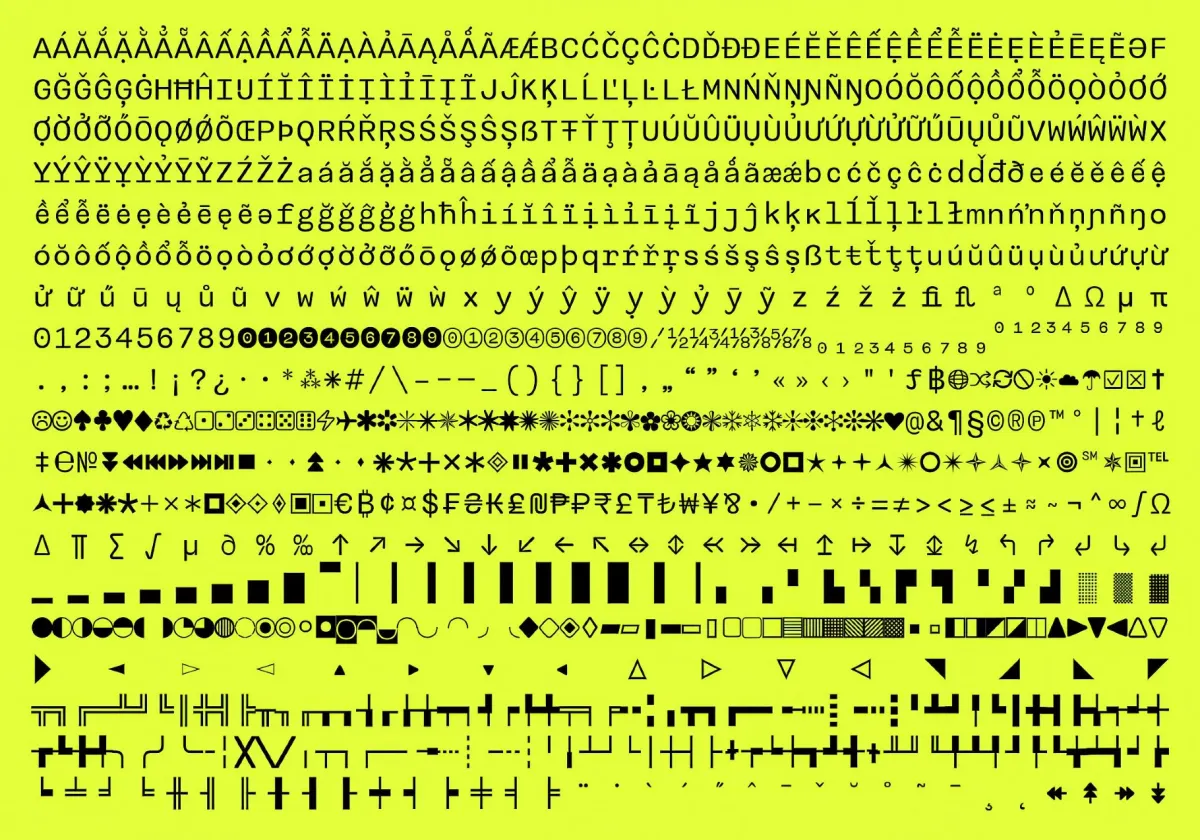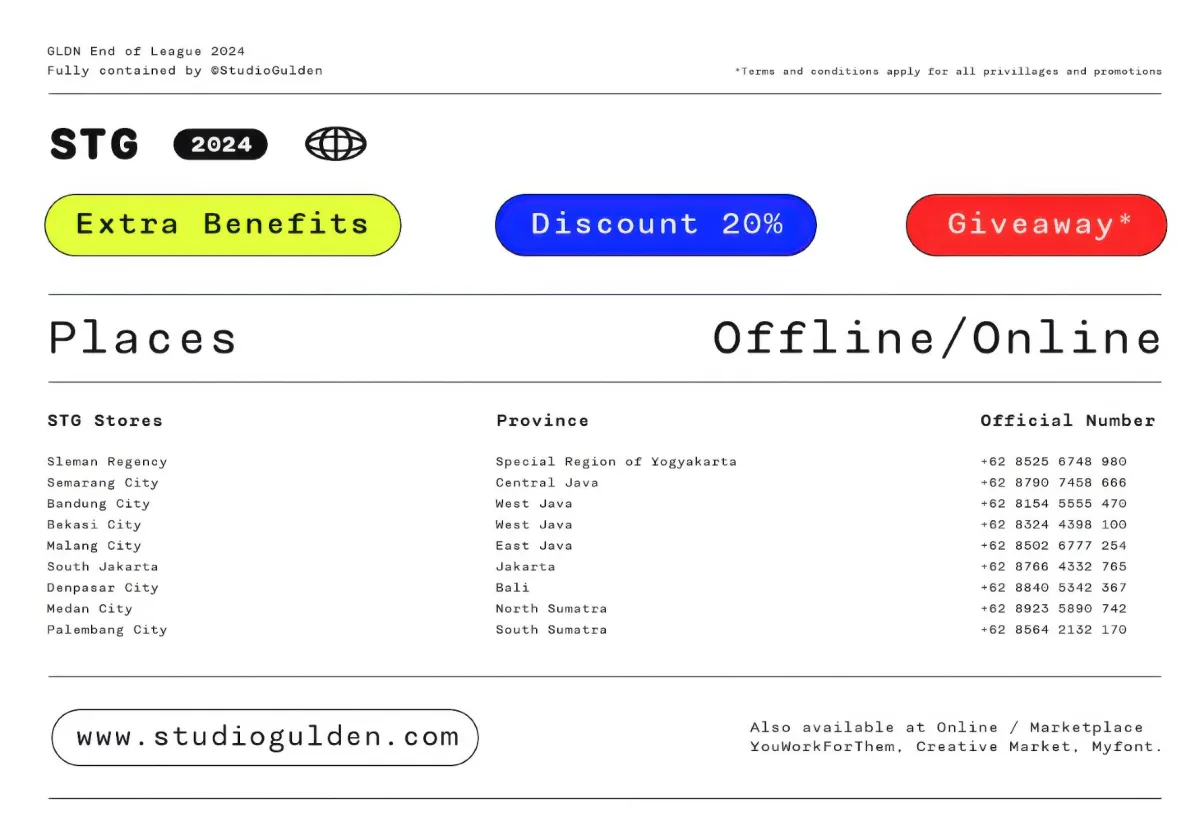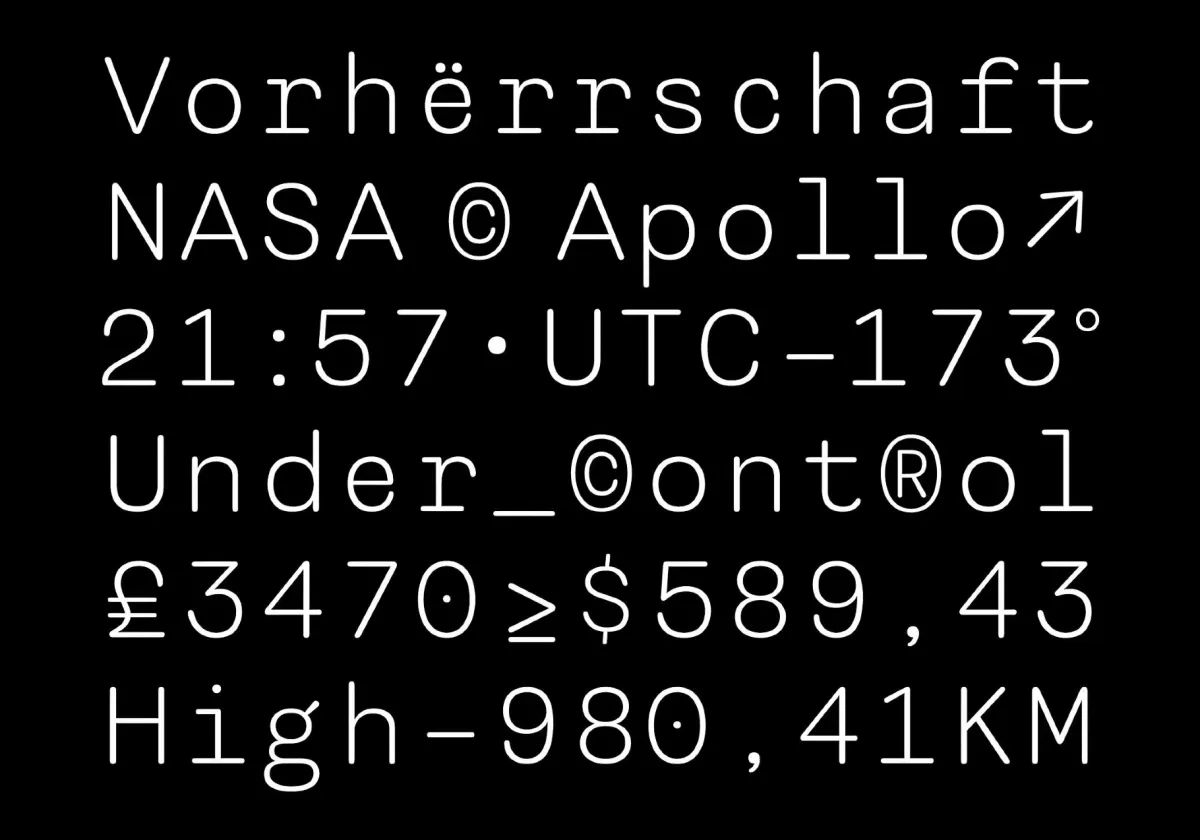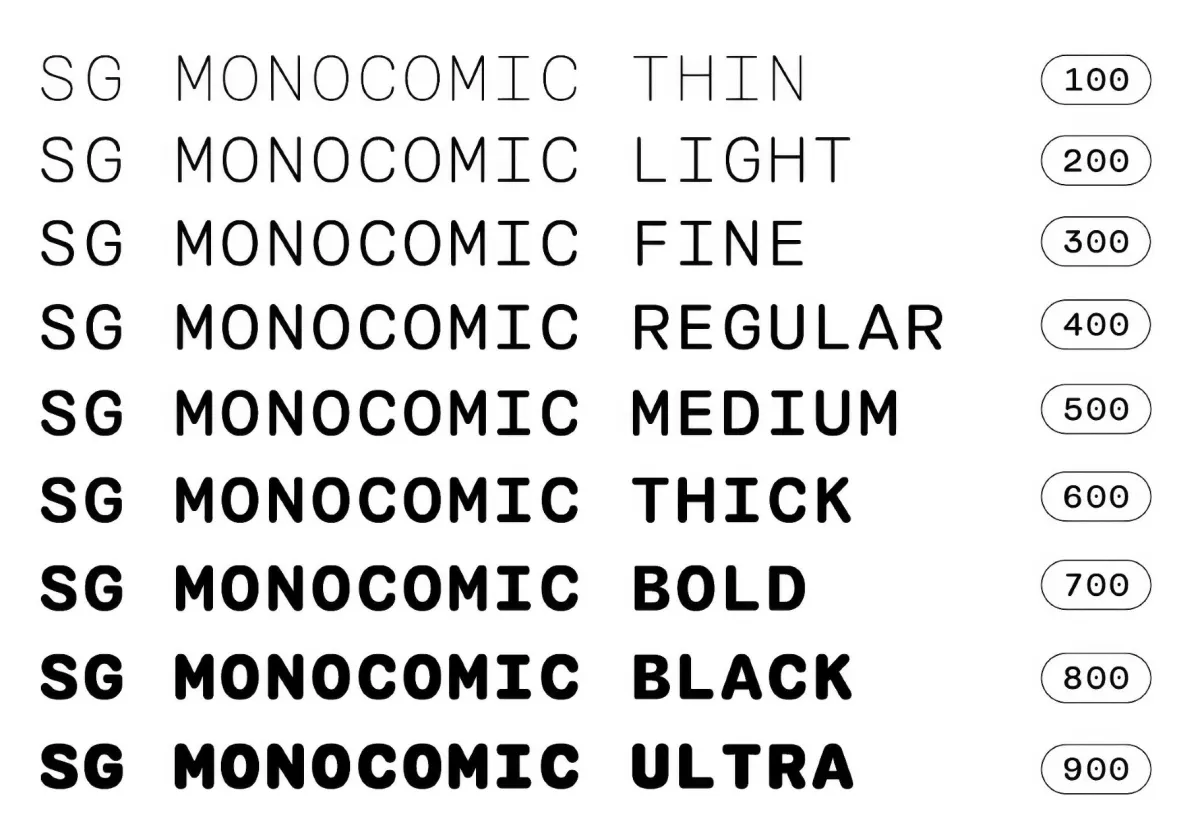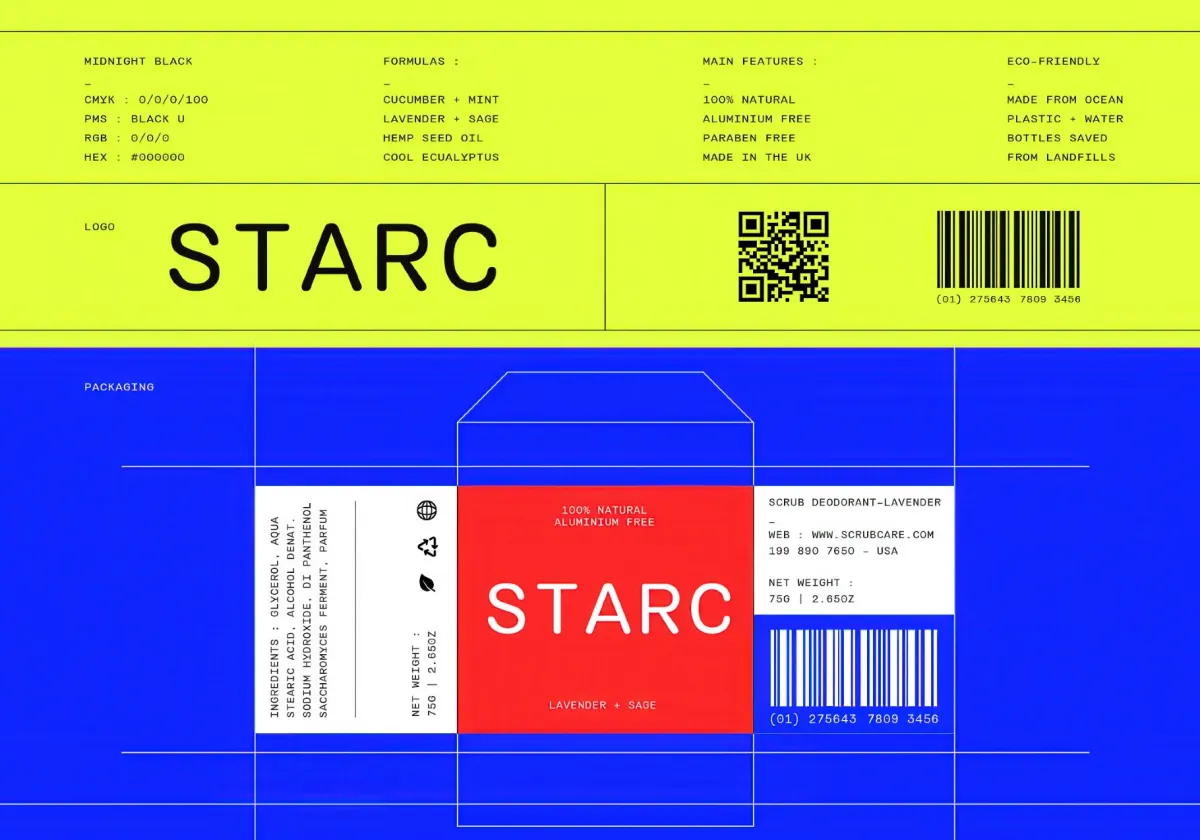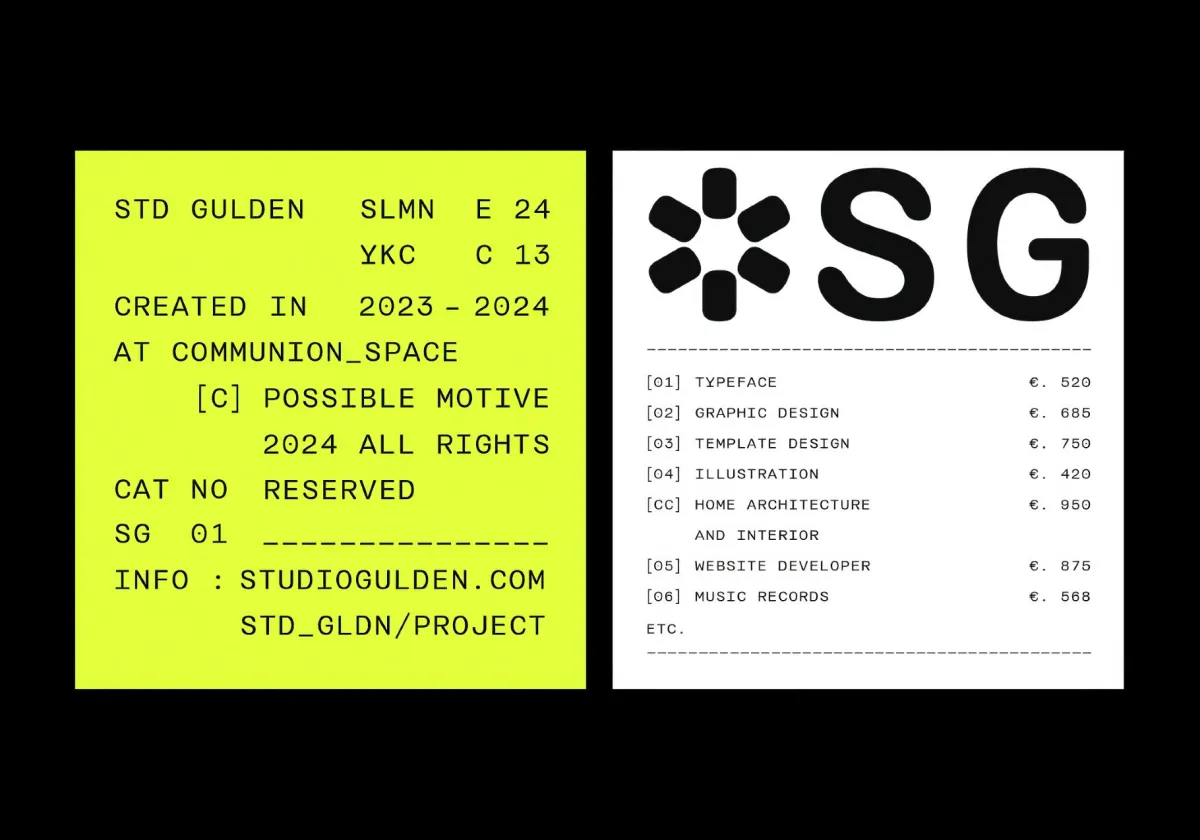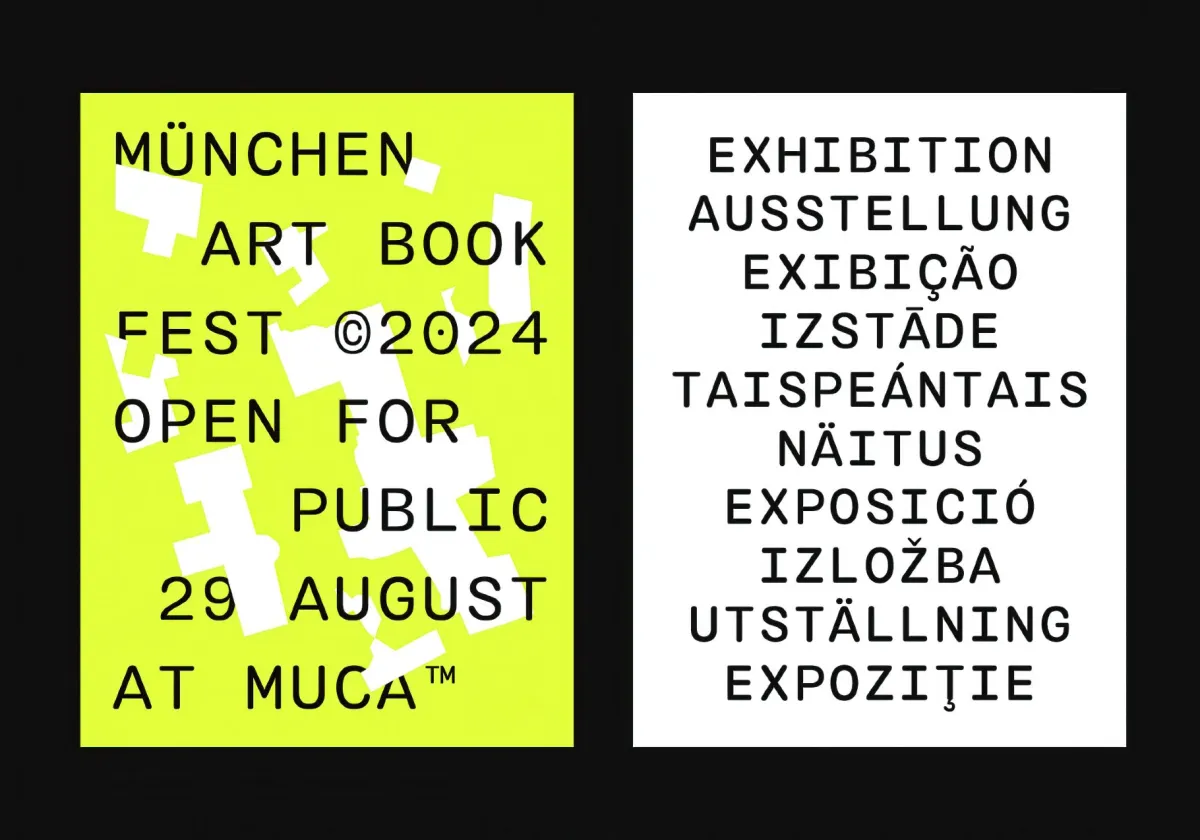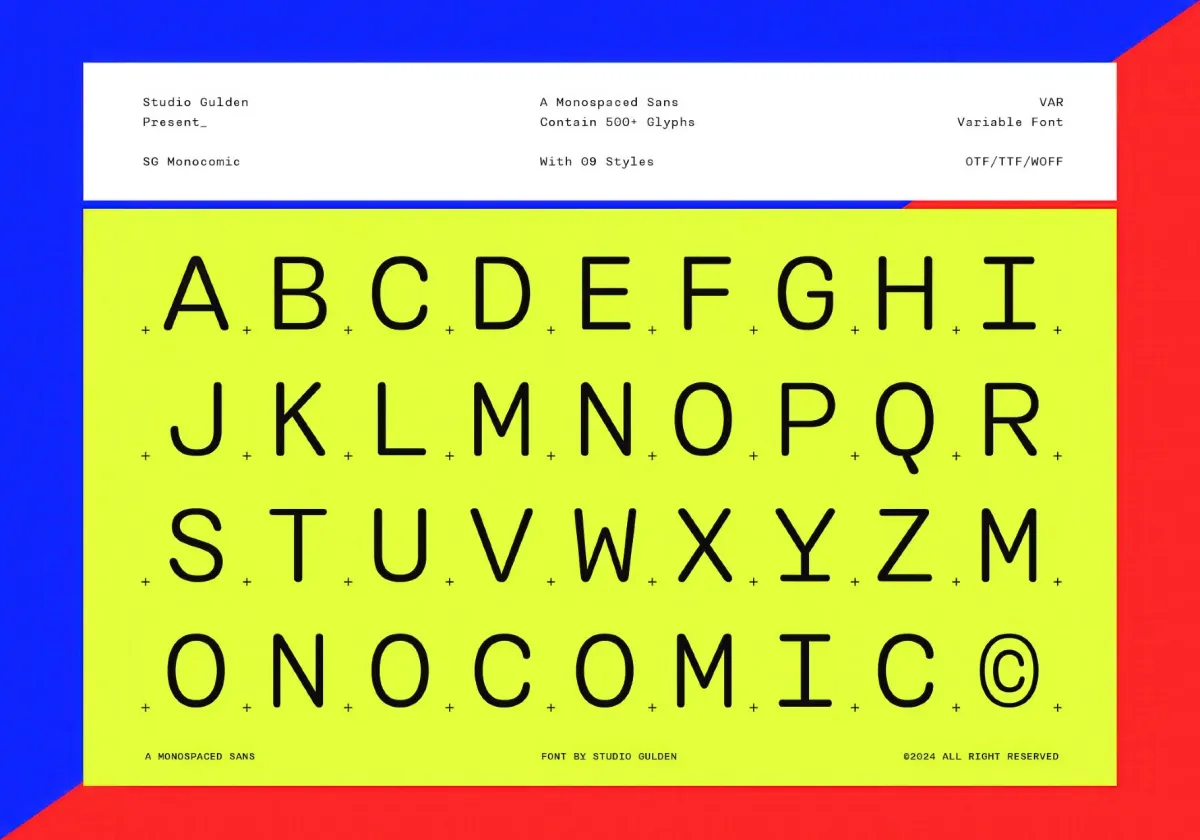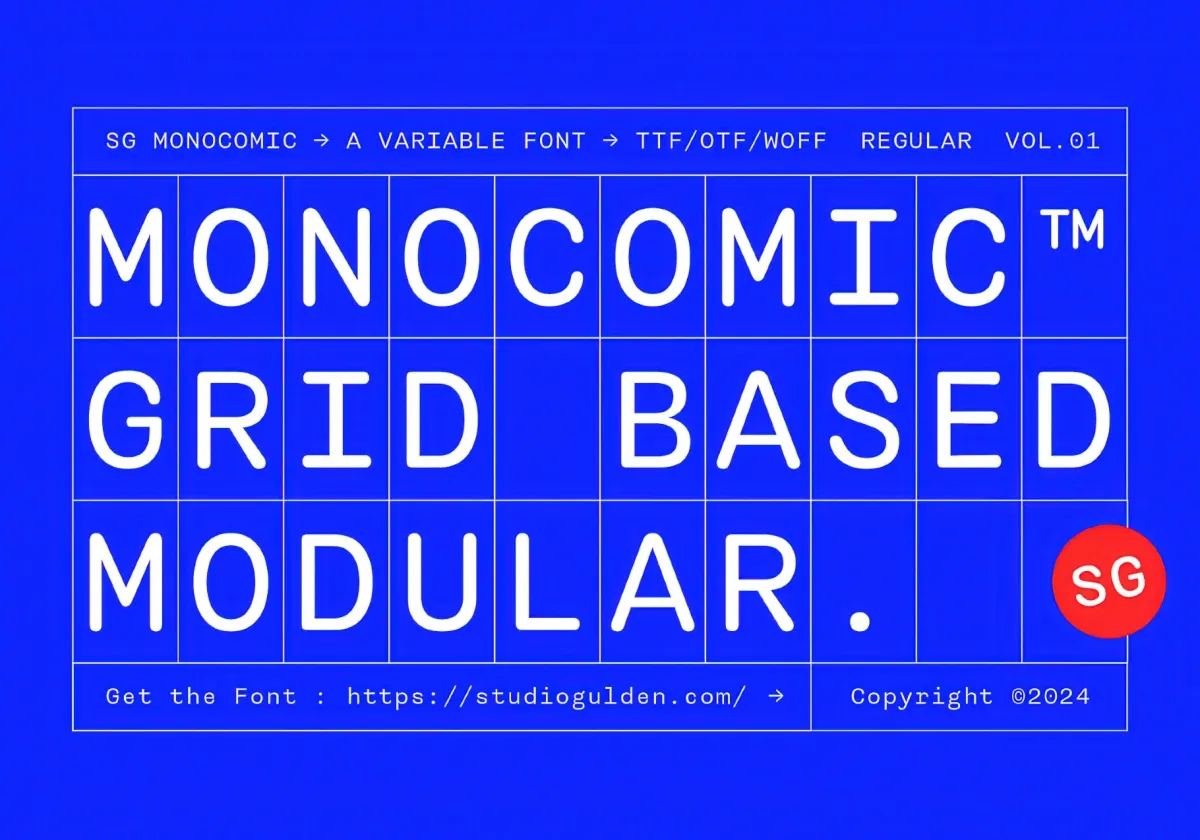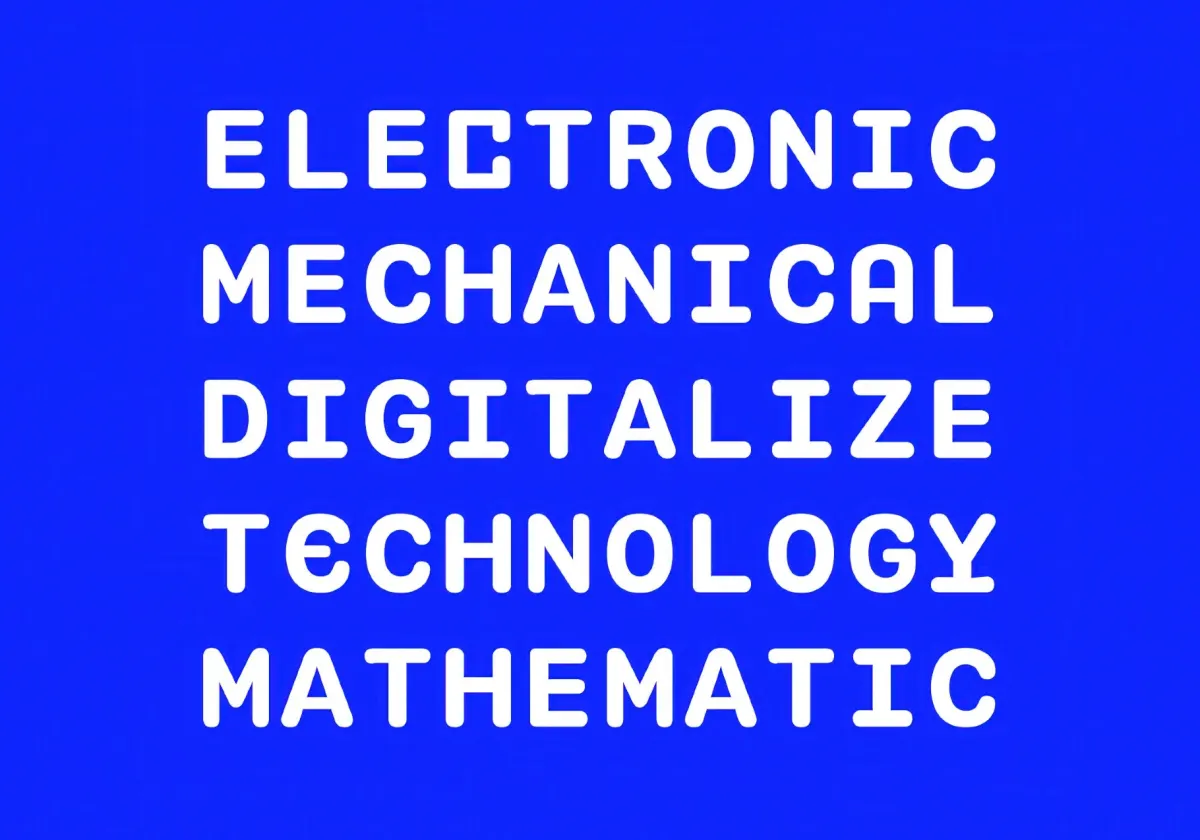
SG MONOCOMIC
SG MONOCOMIC blends utility and character across nine weights, from whisper-thin to ultra bold. This monospaced family is influenced by the typographic DNA of airport boards, ticket stubs, system interfaces, and printed bills. It captures that familiar, functional rhythm — then softens it with rounded terminals and a human touch.
The fonts' fixed-width structure makes them a natural fit for coding environments, tech interfaces, price tags, receipts, data-heavy layouts, or any application that demands grid-perfect alignment. In print, SG MONOCOMIC brings clarity to manuals, forms, packaging, and publication metadata. Across weights, the tone shifts from technical to expressive — adaptable for posters, timelines, album covers, infographics, and branded collateral.
- 9 weights (Thin to Ultra);
- full Latin character set with diacritics, arrows, math symbols, currency, fractions, stylistic alternates, ligatures, oldstyle figures, and more;